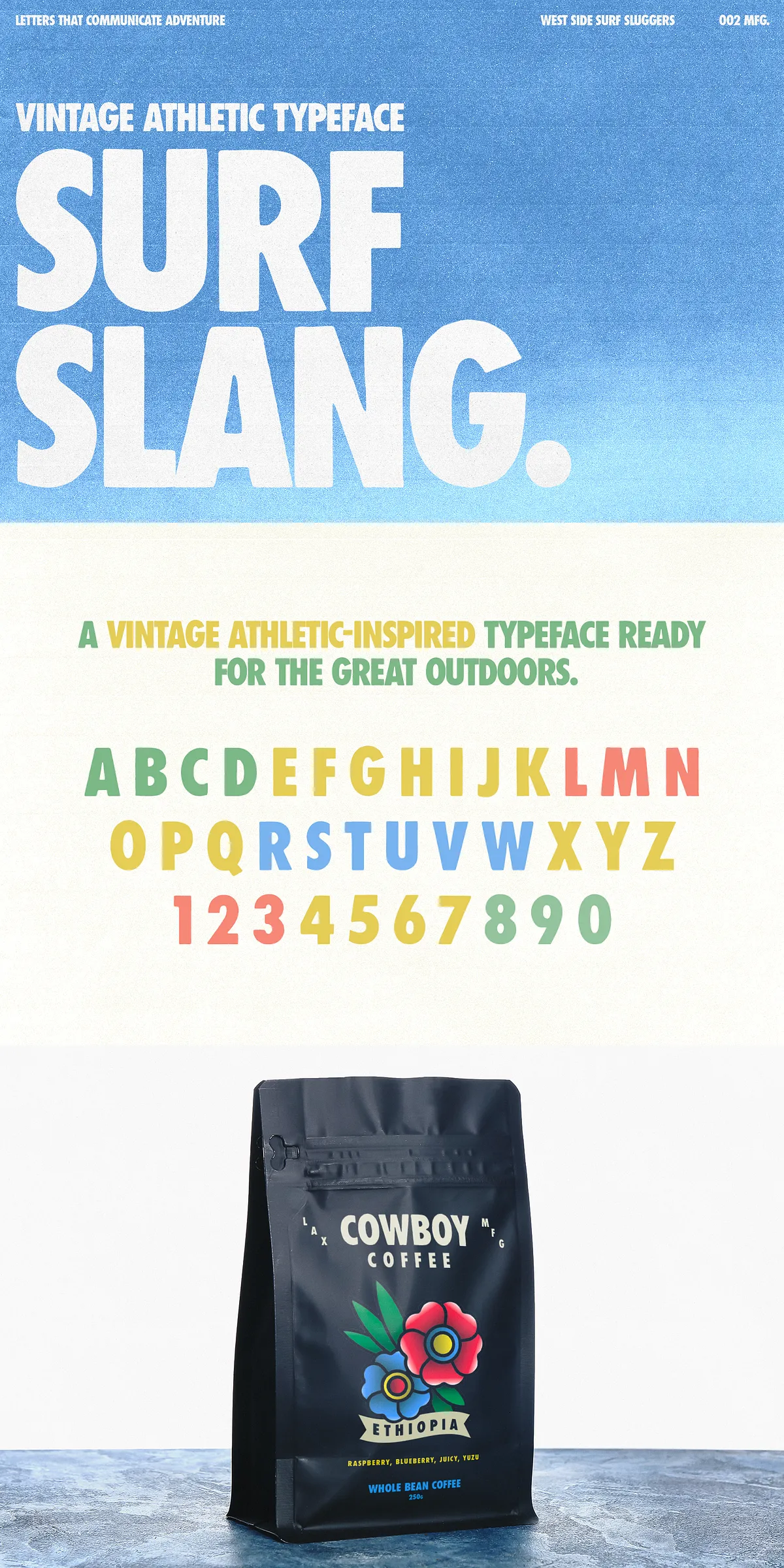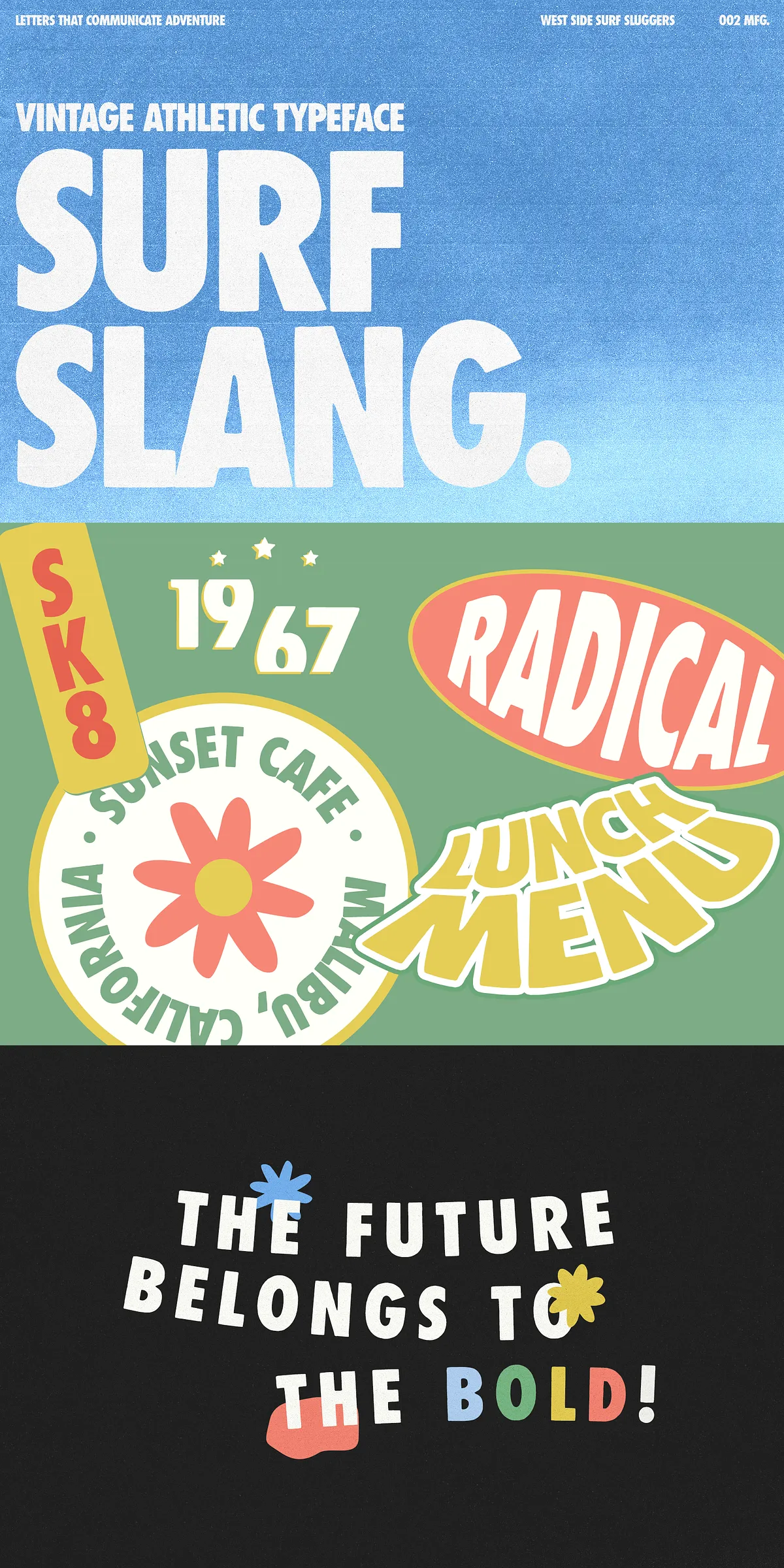
Surf Slang – Bold and Condensed
Surf Slang is a bold sans-serif typeface that nods itself to the heritage of iconic athleticism and echoing cries of adventure. Its handmade edges and condensed body make a great argument for uses such as logos, apparel, zines, films, or displays that capture your readers eye. Surf Slang embodies the human imperfections while still maintaining legible-consistency that resonates with creatives who are in pursuit of vintage charm.